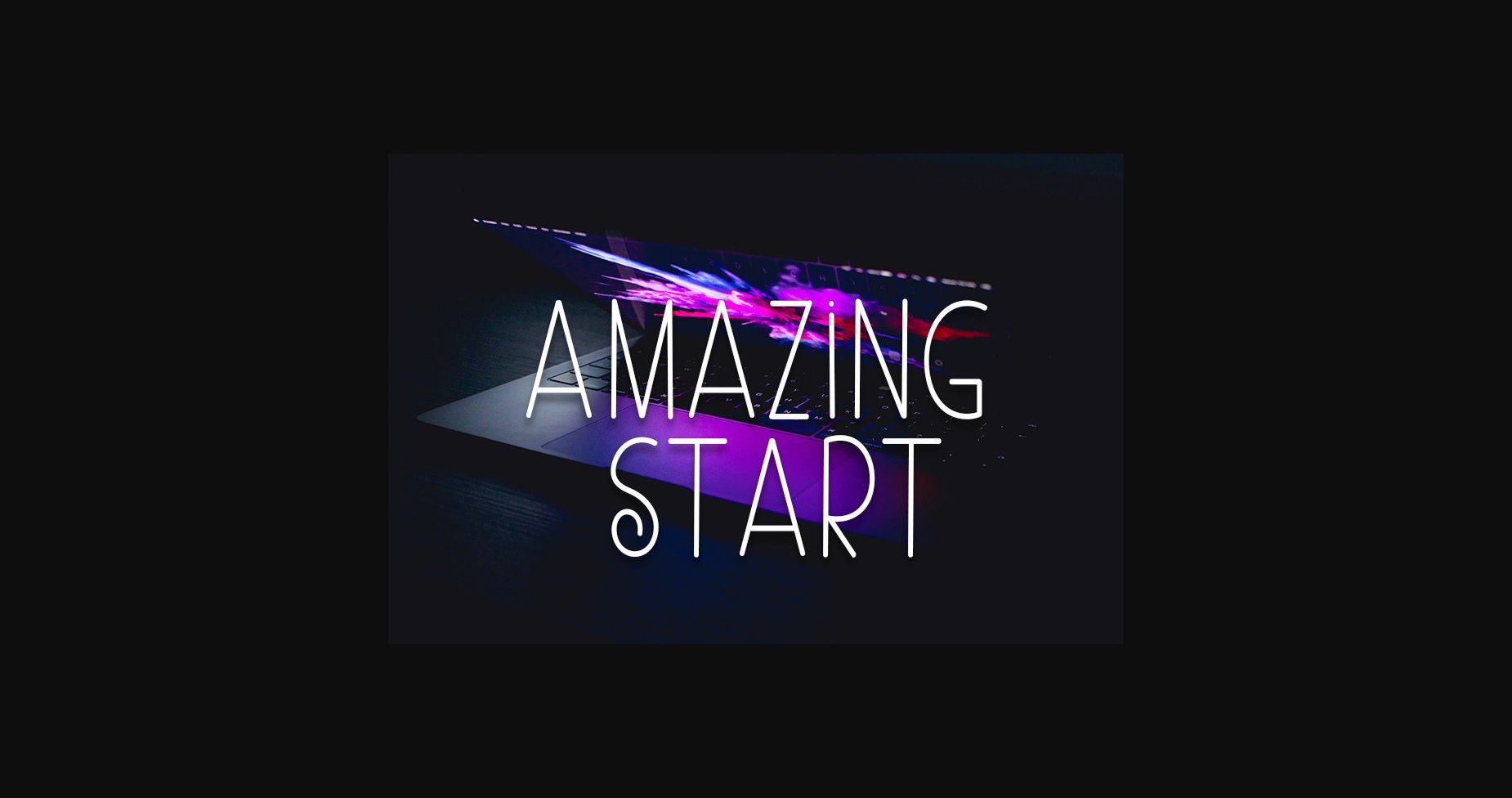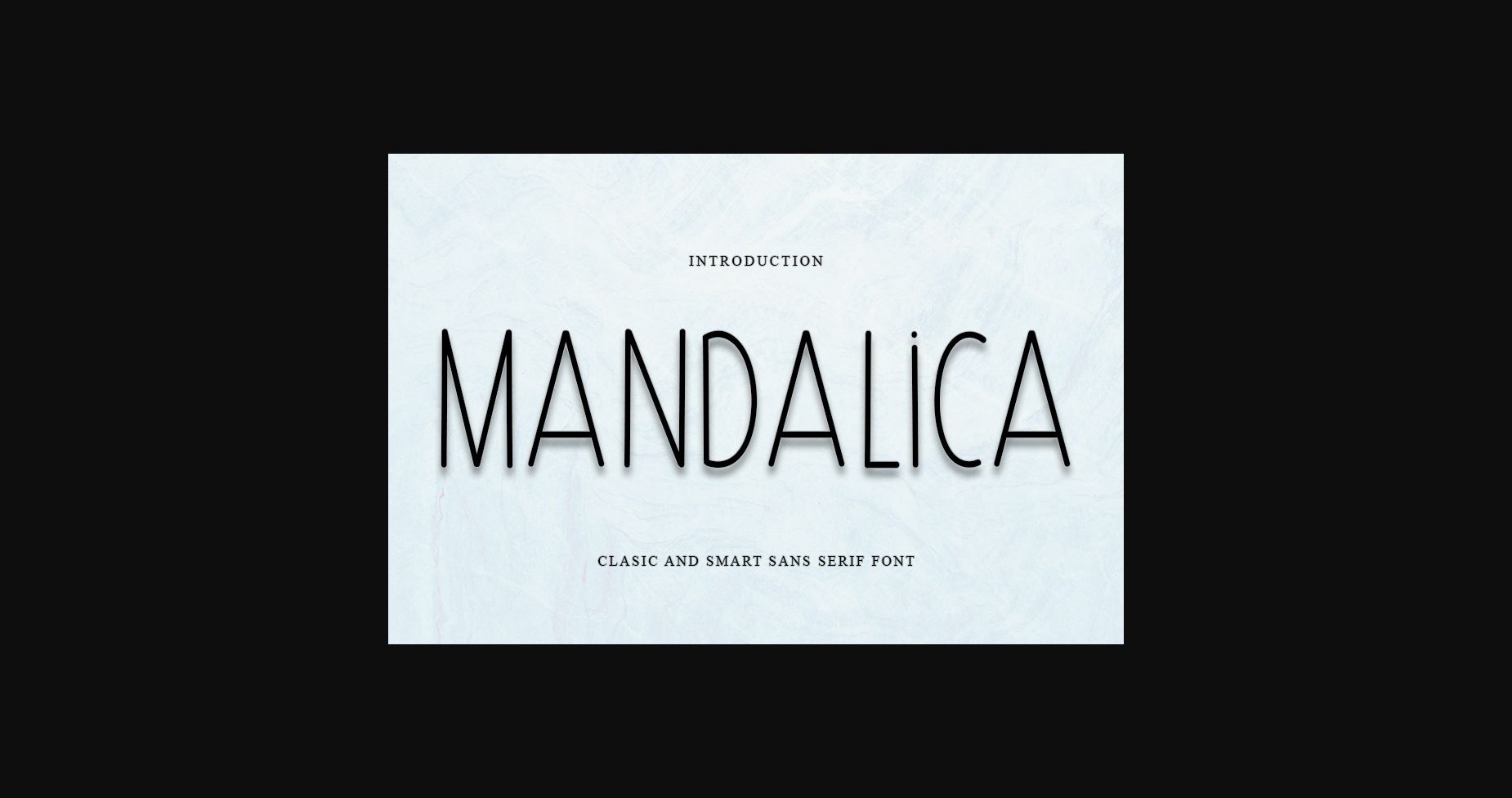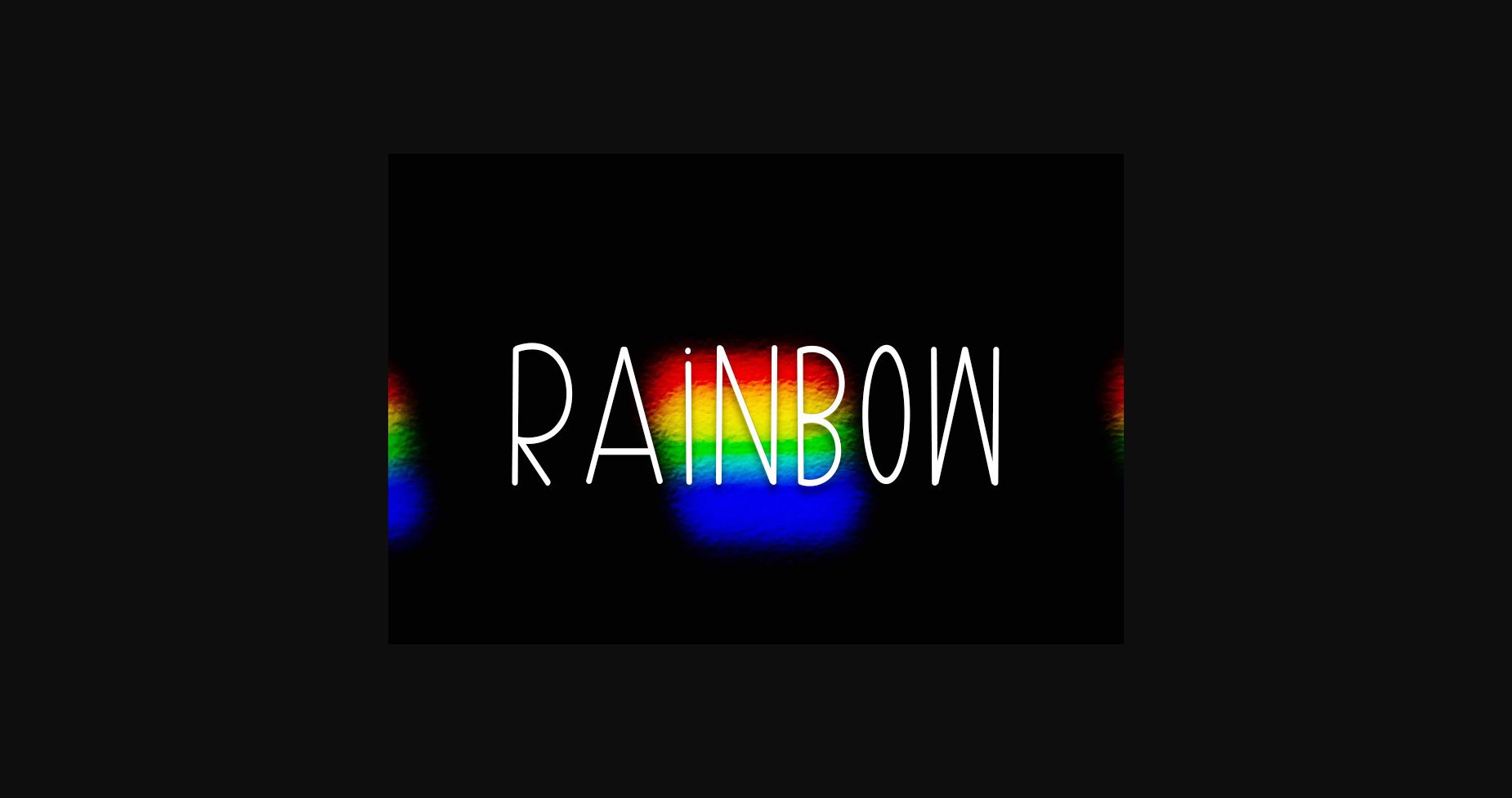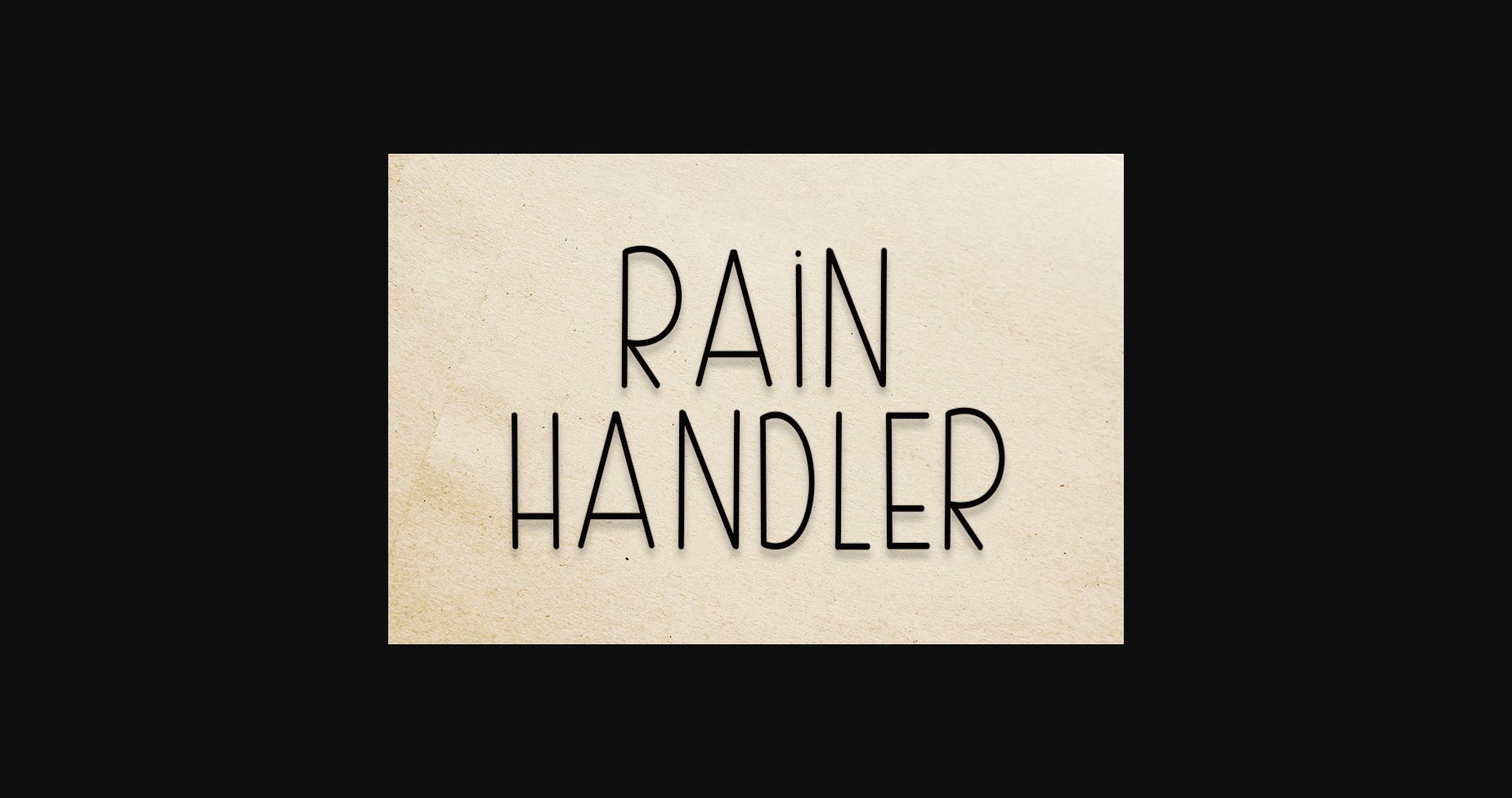
About Mandalica Font
Mandalica is a friendly Sans serif font, carefully designed to become a true favorite. It maintains its classy calligraphic influences while feeling contemporary and fresh.